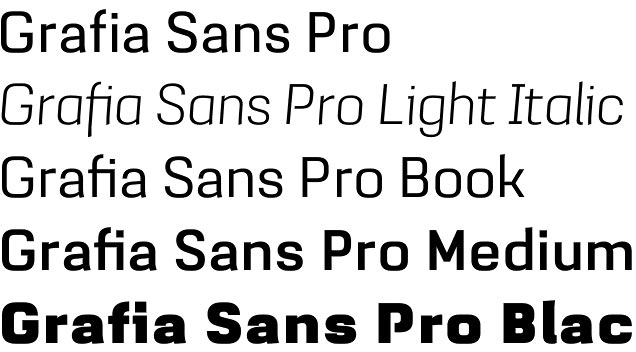
Grafia Sans 1 Pro font
Grafia Sans 1 Pro font by Ricardo Santos (Vanarchiv type foundry) is a low-contrast, vertical stressed Sans-Serif typeface family carrying geometric, humanist and grotesque characteristics. Originally Grafia Sans 1 Pro font appeared as a custom brand face for the YOYO studio (Barcelona) 2005, designed to replace Helvetica font used by them by that time. After almost decade of development and redesign the brand new Grafia Sans 1 Pro family is ready to go. It has display proportions and small apertures. The italics have skew angle of 5°, and they are a bit narrower than the roman versions.
The font family offers 18 variations (9 weights plus italics): Thin, Thin Italic, Ultra Light, Ultra Light Italic, Book, Book Italic, Medium, Medium Italic, Bold, Bold Italic, Extra Bold, Extra Bold Italic, Black And Black Italic.
Grafia Sans 1 Pro font family is heavily equipped with OpenType features: Small Caps, Case Sensitive Punctuation, Superior Lowercase, Scientific Superiors And Inferiors, Standard And Discretional Ligatures, Historical Forms, Old Style, Small Caps And Lining Figures, Proportional And Tabular Figures, Slashed Zeros, Stylistic Sets. It also provides broad language support.
Ricardo Santos is a Portuguese graphic designer and illustrator, designing typefaces since 1997. In 2011 he created Tiponautas type foundry, together with Luis Alonso. In 2013 he joined Tipos das Letras studio. Ricardo Santos’ type foundry is Vanarchiv. Check his TDL Ruha Hairline font.